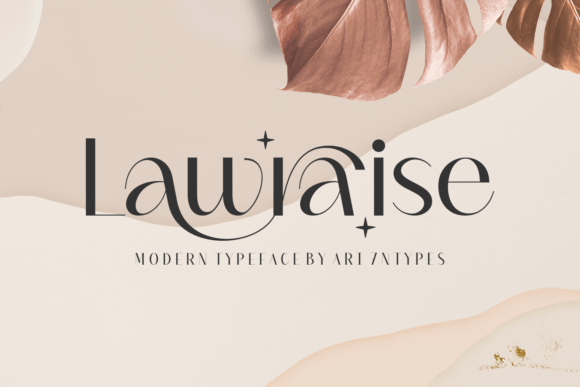
Lawraise Font
Lawraise is an exquisite sans-serif font with an incredibly elegant feel. Balanced and impeccably shaped, these characters will take any creation to the highest levels!